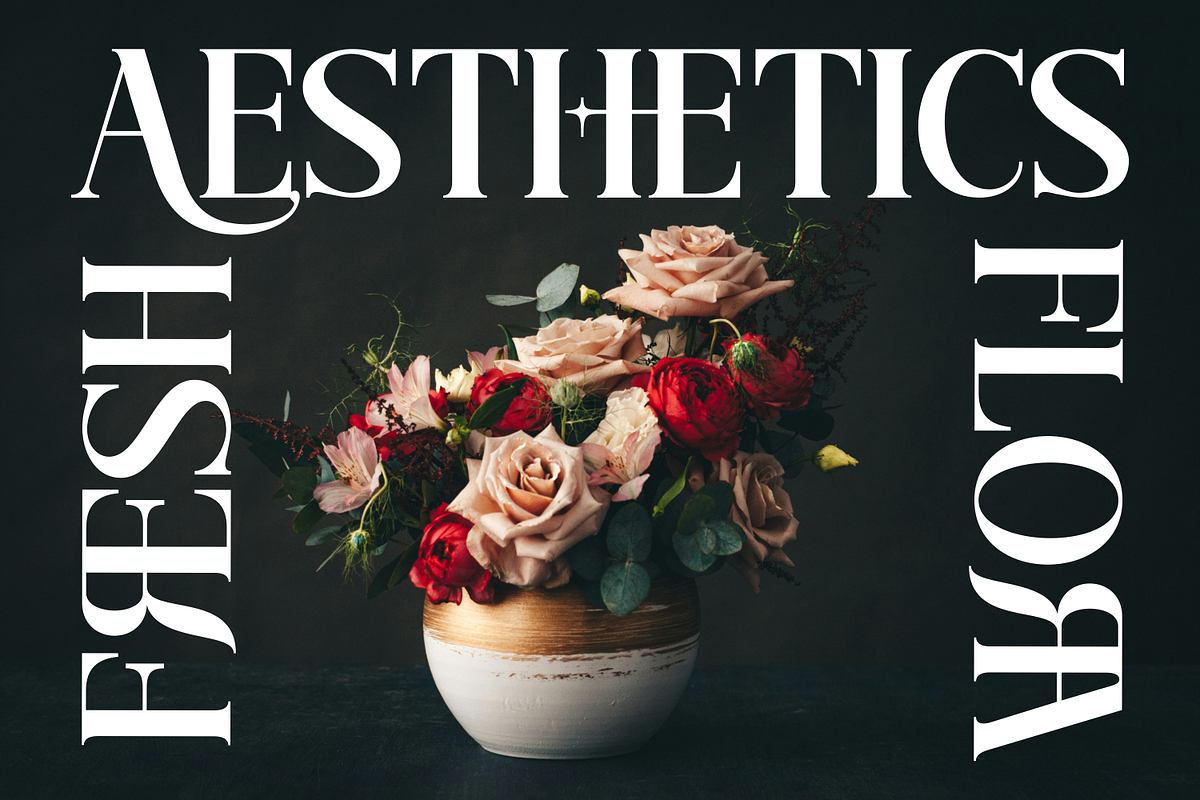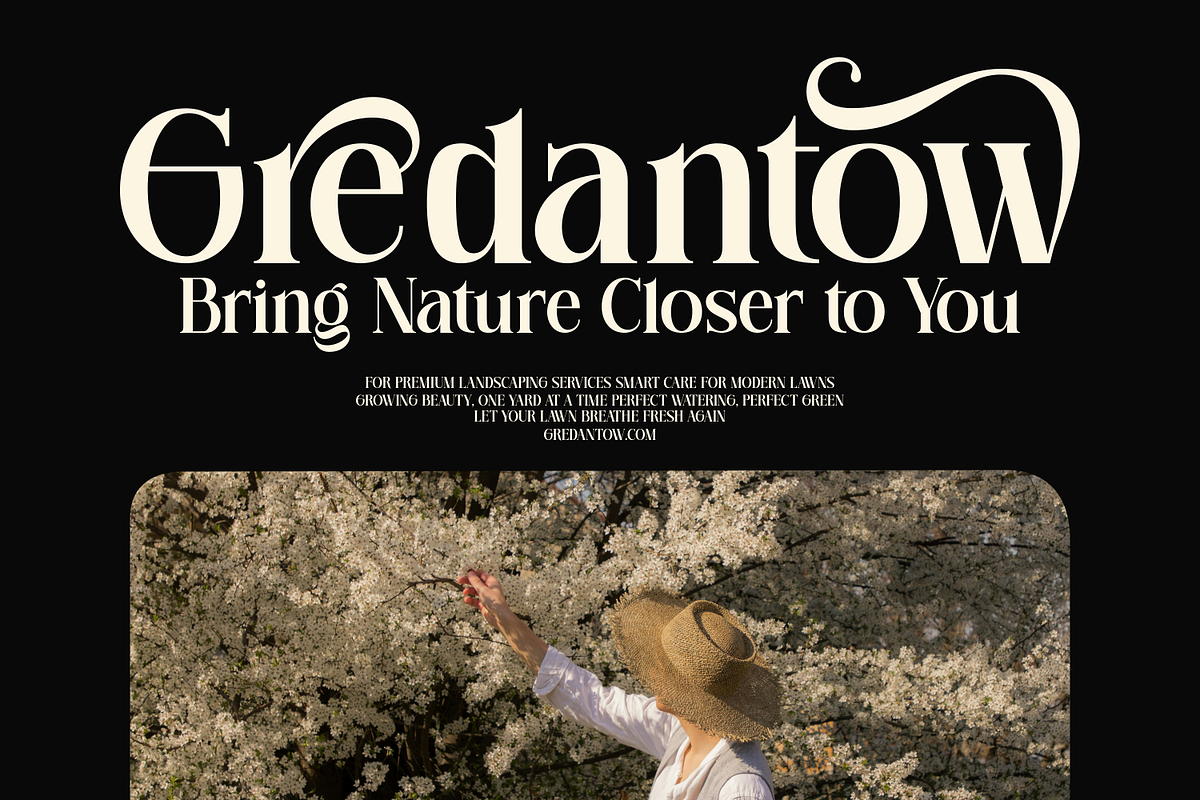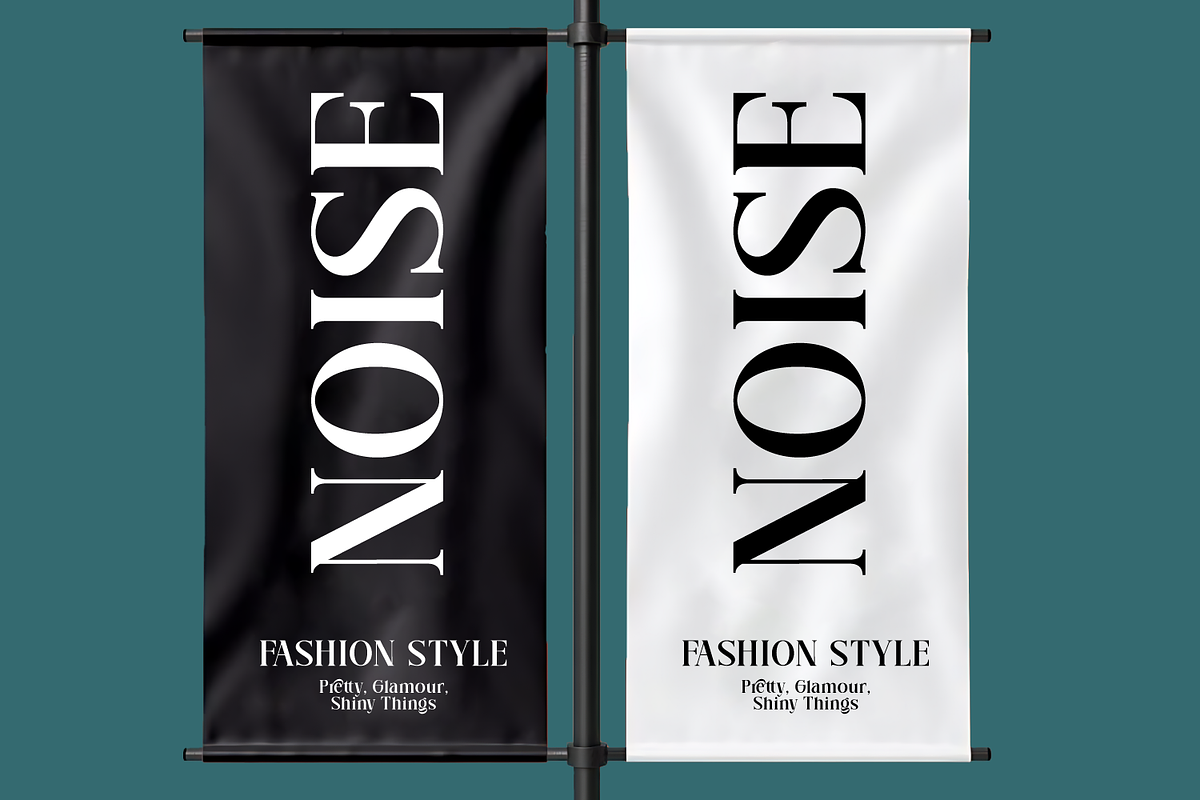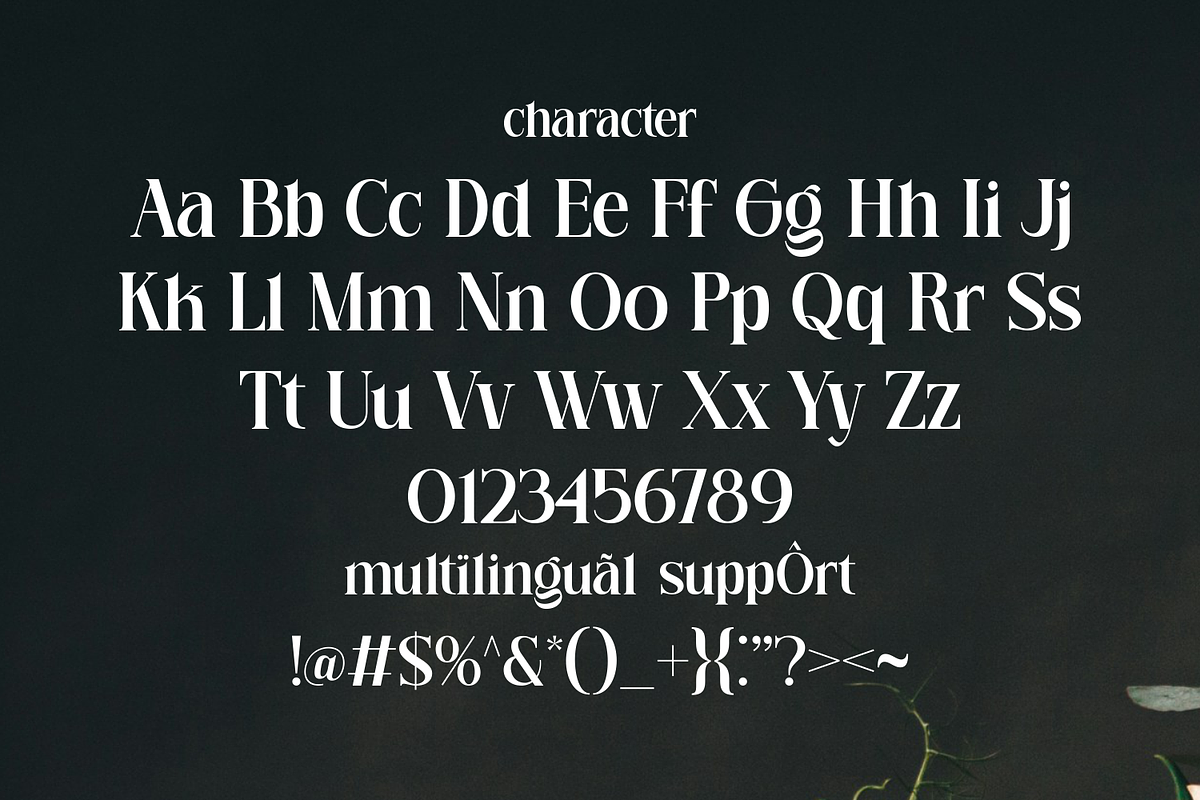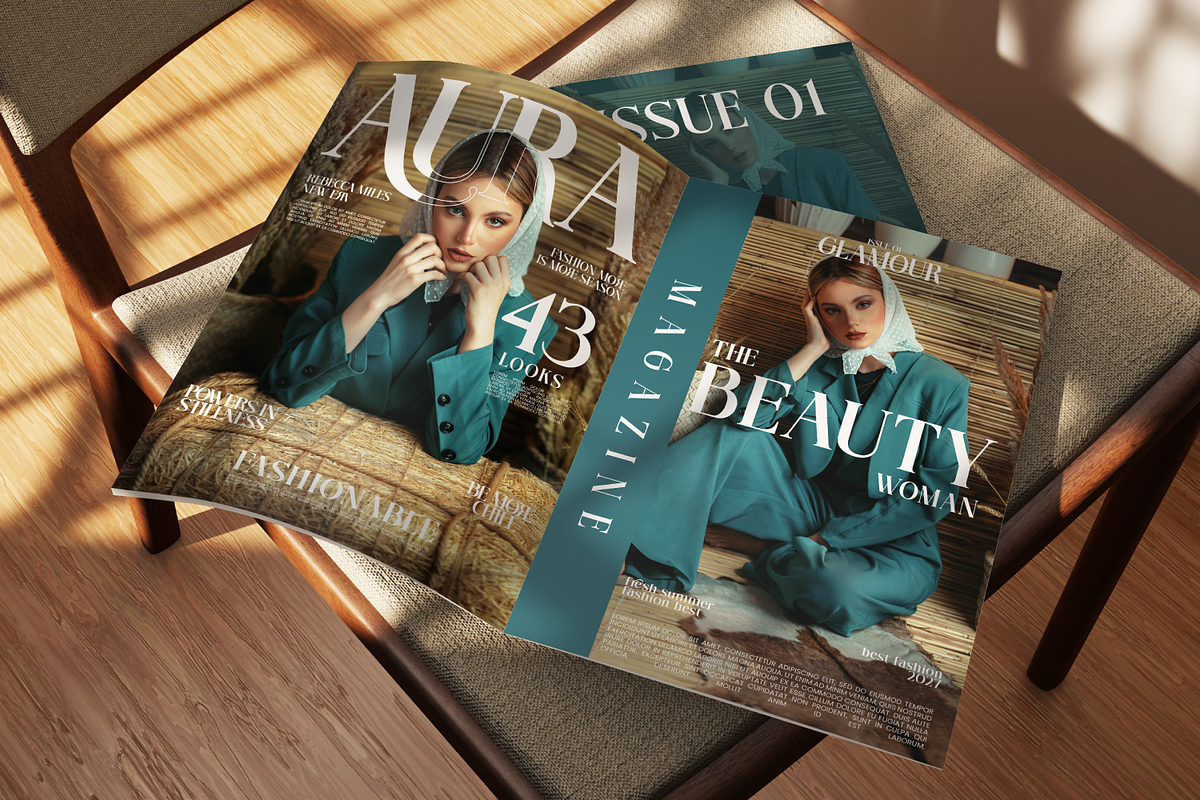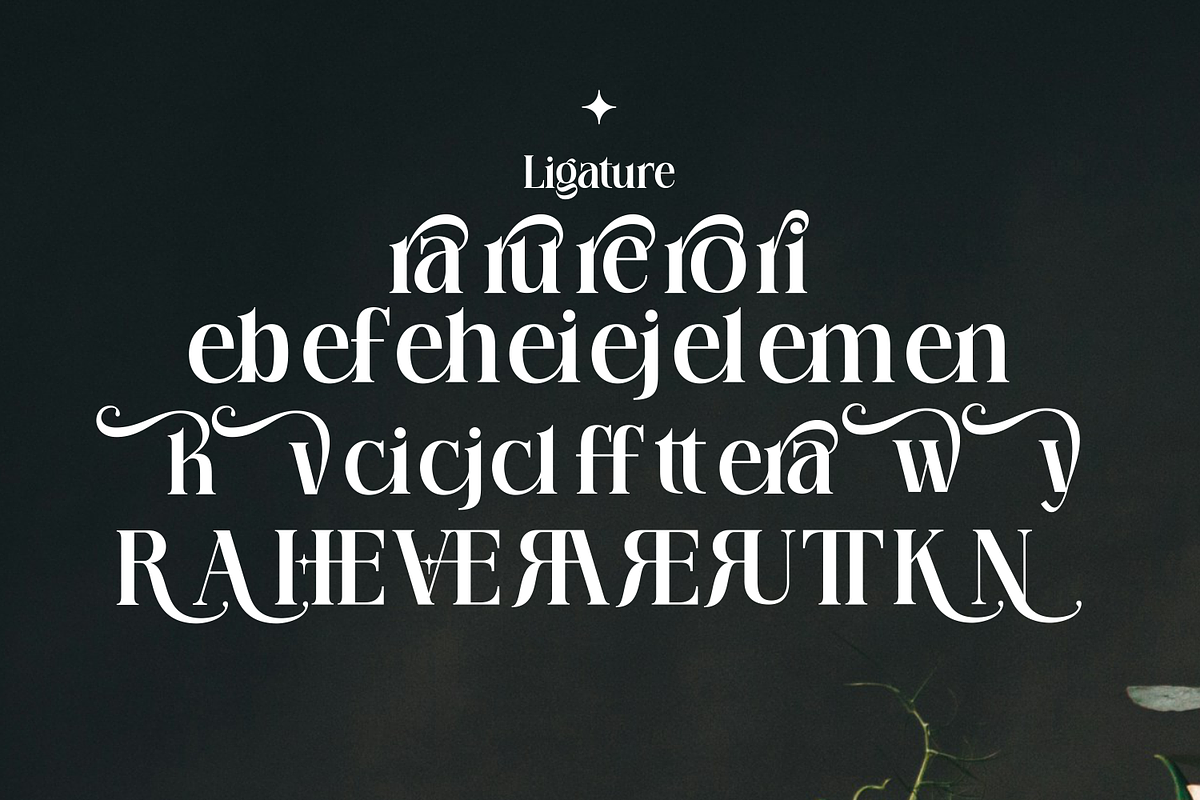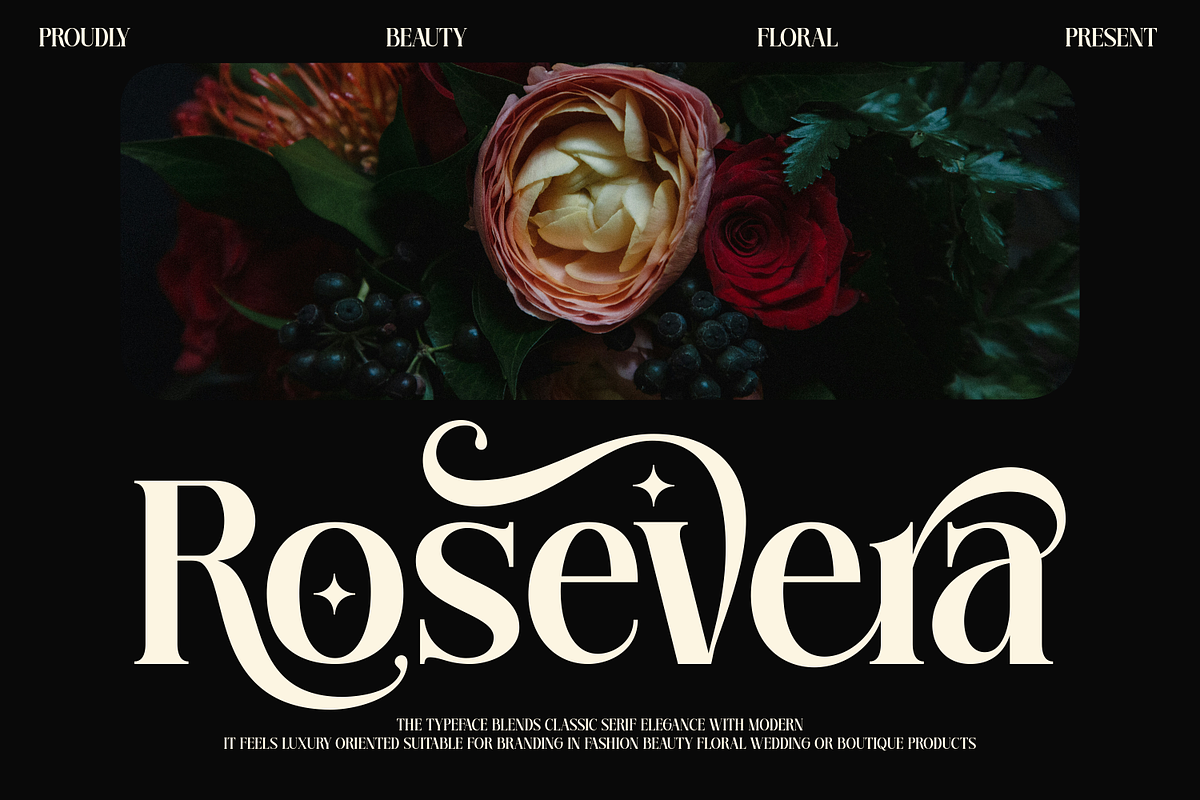
Rosevera – Luxury Blending Classic
Rosevera is an exquisitely designed serif typeface that bridges the gap between traditional prestige and contemporary high-fashion design. Characterized by its dramatic contrasting strokes, smooth fluid swashes, and custom-feel ligatures, this font brings a romantic and poetic atmosphere to any display layout.
Tailor-made for luxury-oriented industries, Rosevera elevates your headlines, making them look instantly high-end and bespoke. It is the definitive choice for sophisticated fashion branding, botanical and floral identity systems, premium cosmetics packaging, and avant-garde editorial designs that require an undeniable sense of grace.
- Luxury & Fashion Branding: Crafting memorable, high-end logos and brand marks.
- Packaging Design: Ideal for premium skincare, perfume labels, and boutique products.
- Editorial Mastery: Eye-catching titles for luxury lifestyle and arts magazines.
- Wedding Stationery: Creating elegant, romance-infused invitations and layouts.
* Full multilingual character set
* OpenType features such as ligatures and alternates